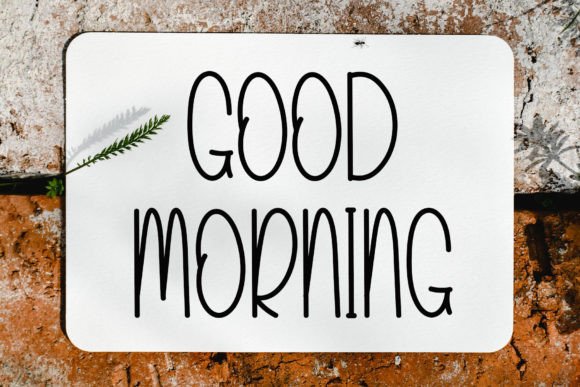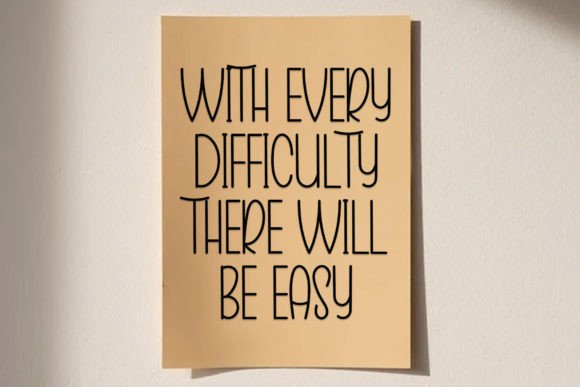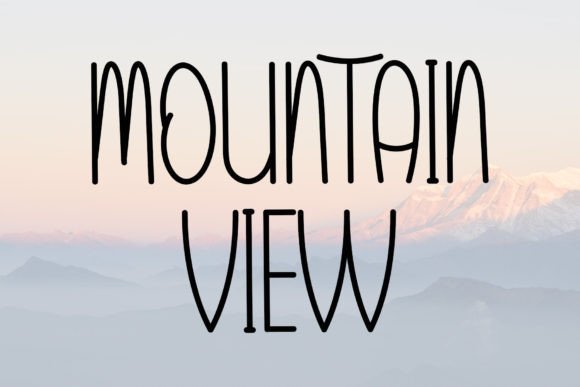
Introduction to Smooth Font
SMOOTH is a casual display font that exudes warmth and friendliness.
Its rounded, playful strokes give a relaxed and approachable feel, perfect for personal projects, invitations, and social media graphics The font’s charming, hand-drawn aesthetic adds a delightful, whimsical touch to any design.
Smooth Font offers exceptional quality and versatility, making it a valuable addition to your design toolkit. Whether you’re creating for personal projects or commercial use, Smooth Font delivers professional results.